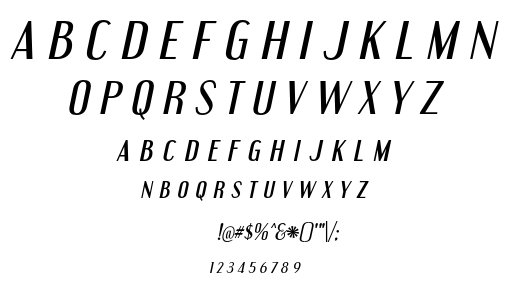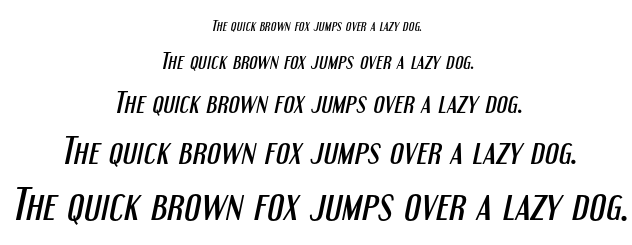
Engebrechtre
Engebrechtre is a gonzo-historical early 20th Century stressed sans. Don’t forget to read the files inside the zip for details. Updated in 2012.